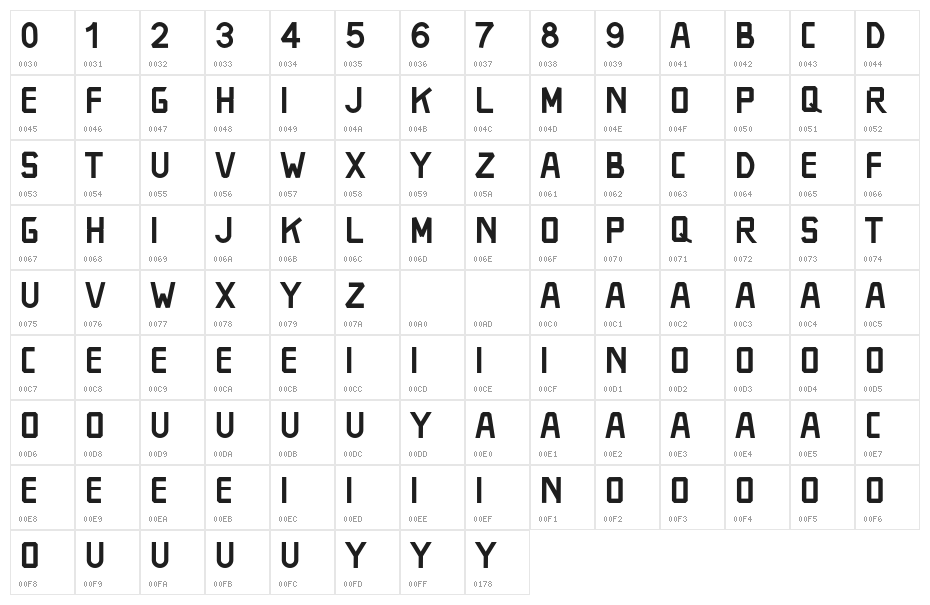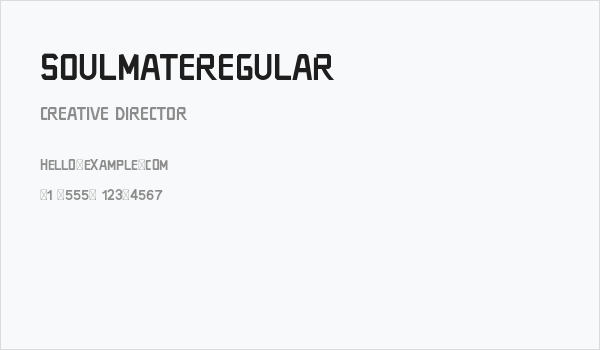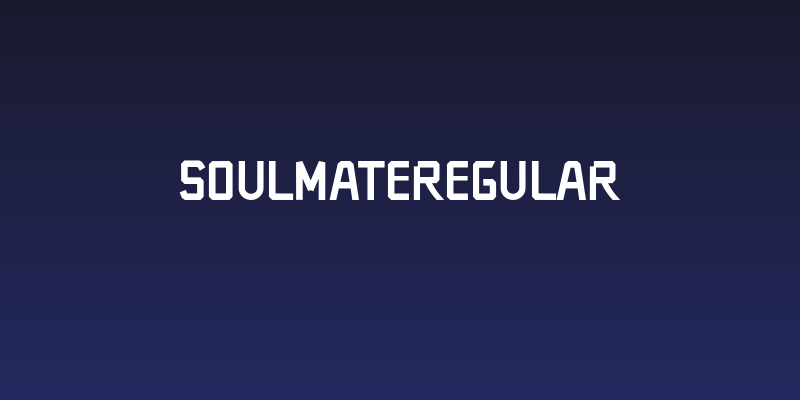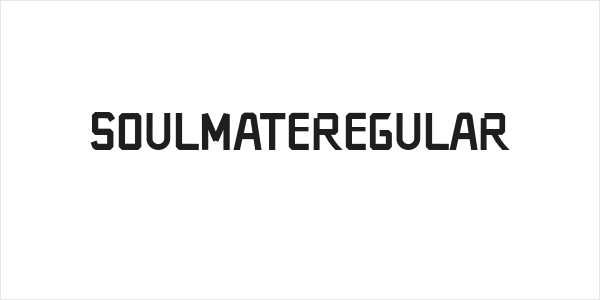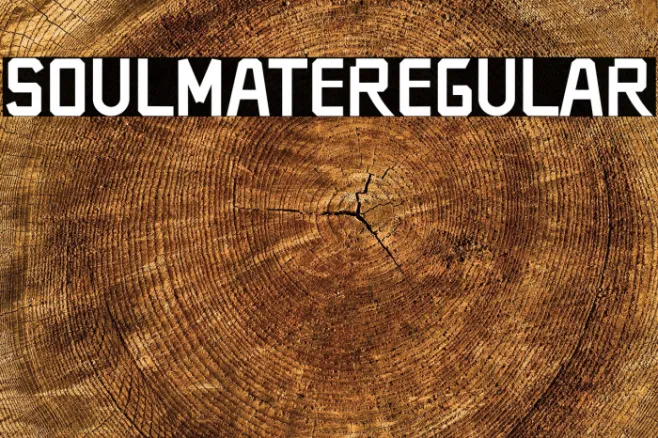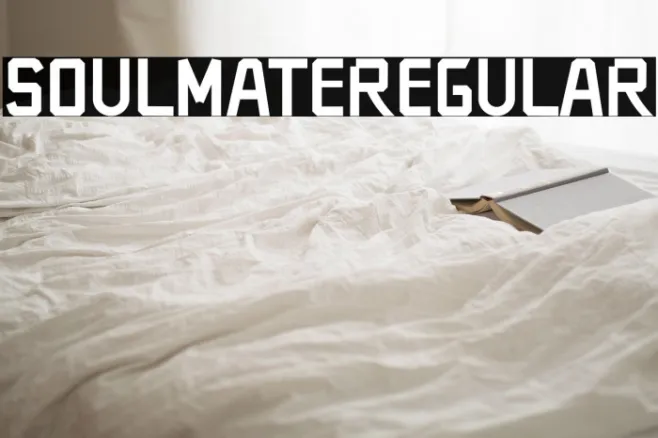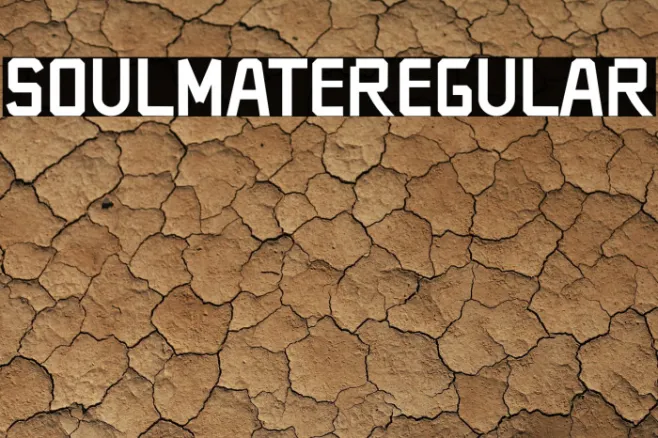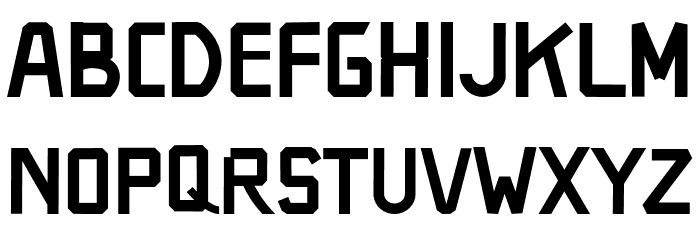
SOULMATERegular Font
SOULMATERegular Description
This font features a bold and geometric style with a modern touch. The characters are constructed with sharp angles and clean lines, giving it a strong and assertive presence. The uppercase letters are uniform in height, while the numbers maintain a consistent width, ensuring readability. The font lacks lowercase letters and special characters, focusing on a straightforward and impactful design. Its structured appearance makes it suitable for projects that require a contemporary and professional look.
| Proposed Projects | Ideal for branding, headlines, posters, and signage where a strong and modern aesthetic is desired. |